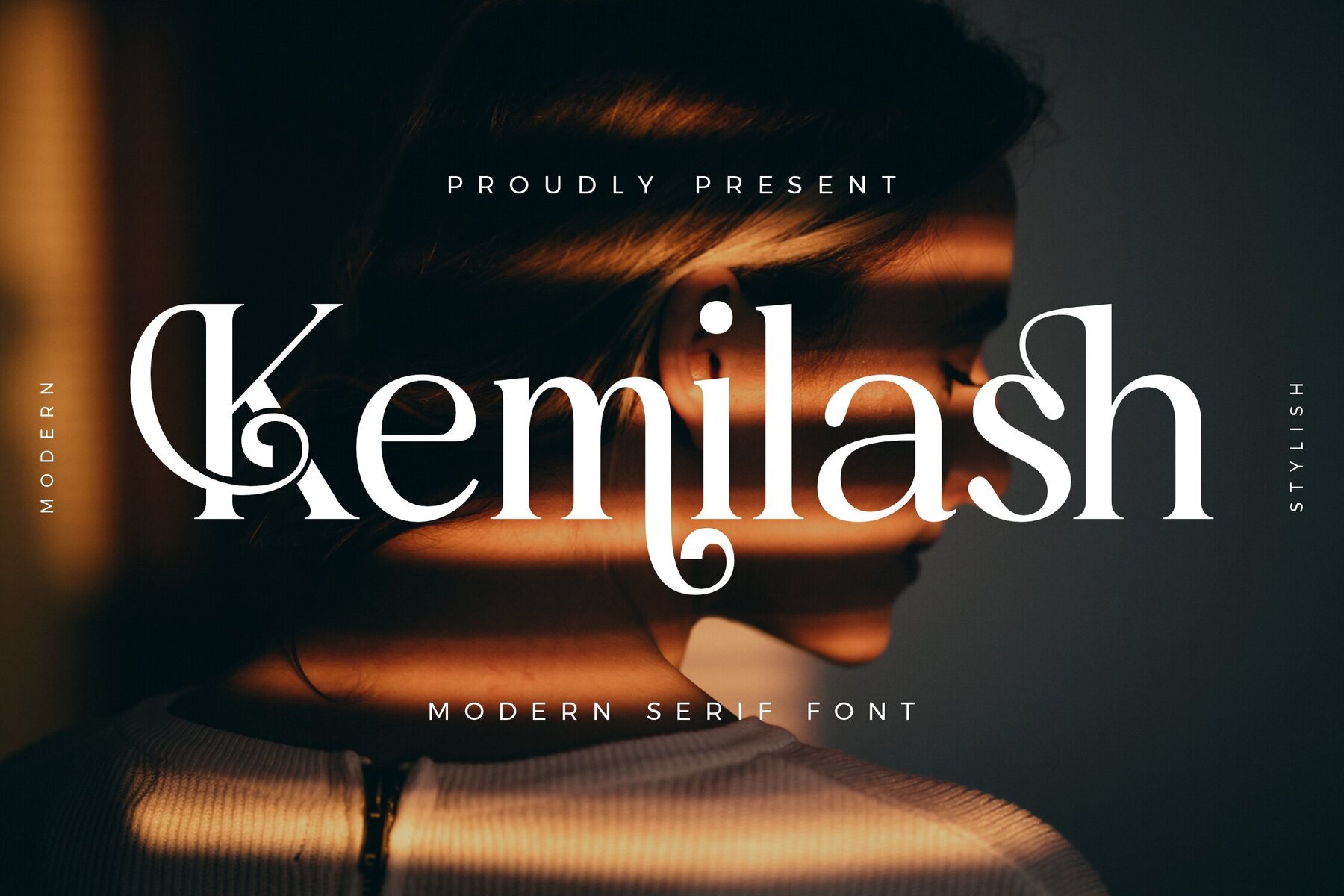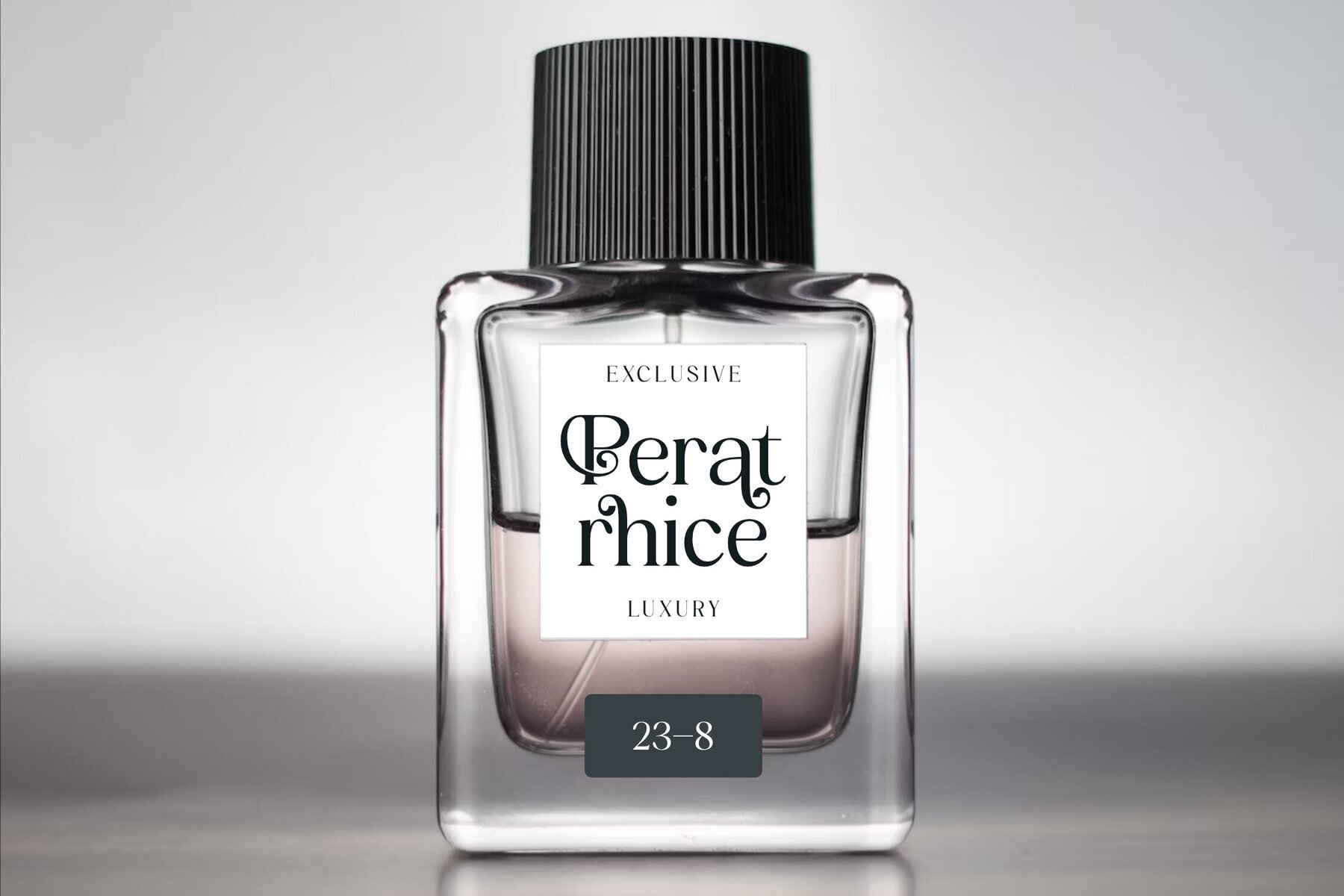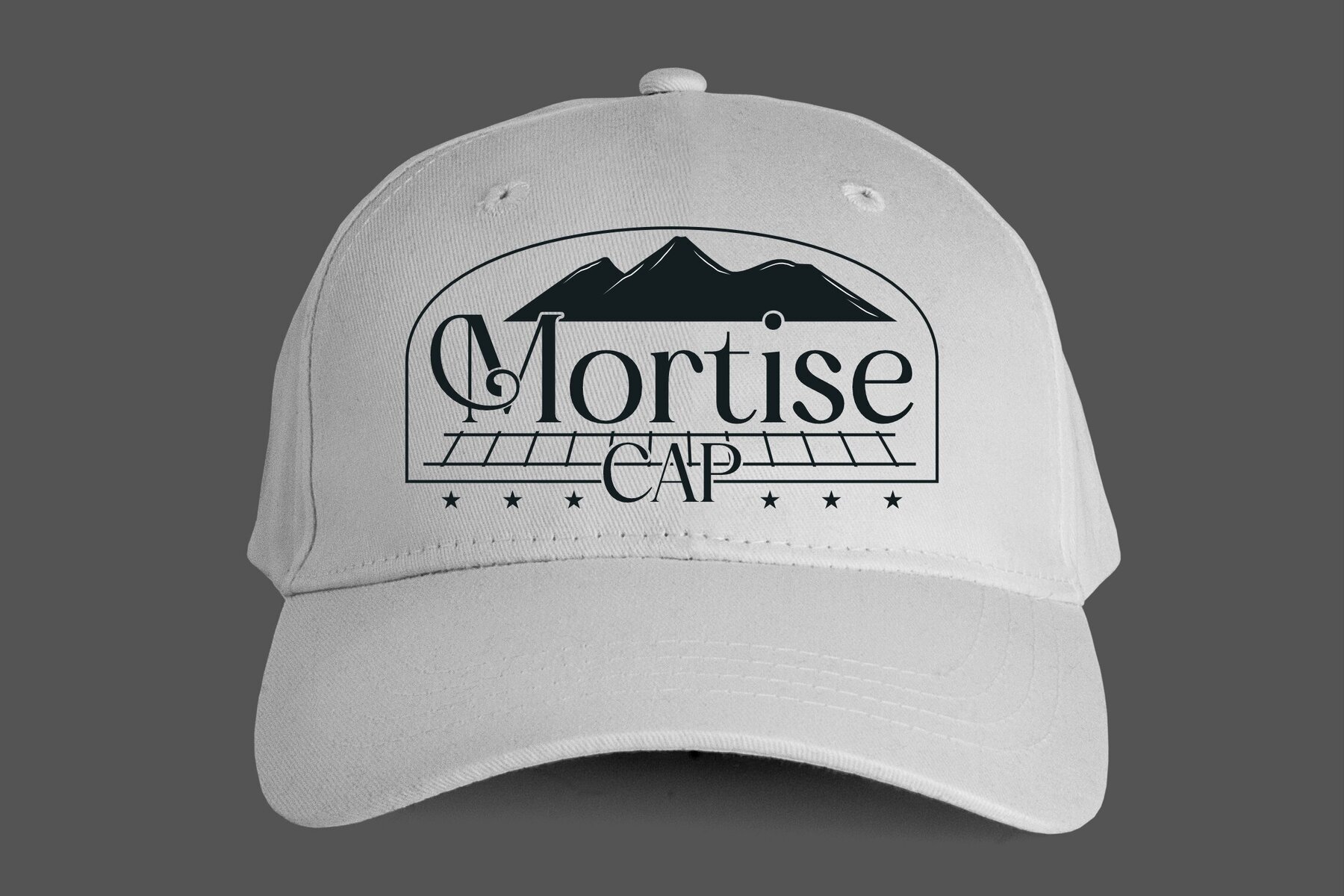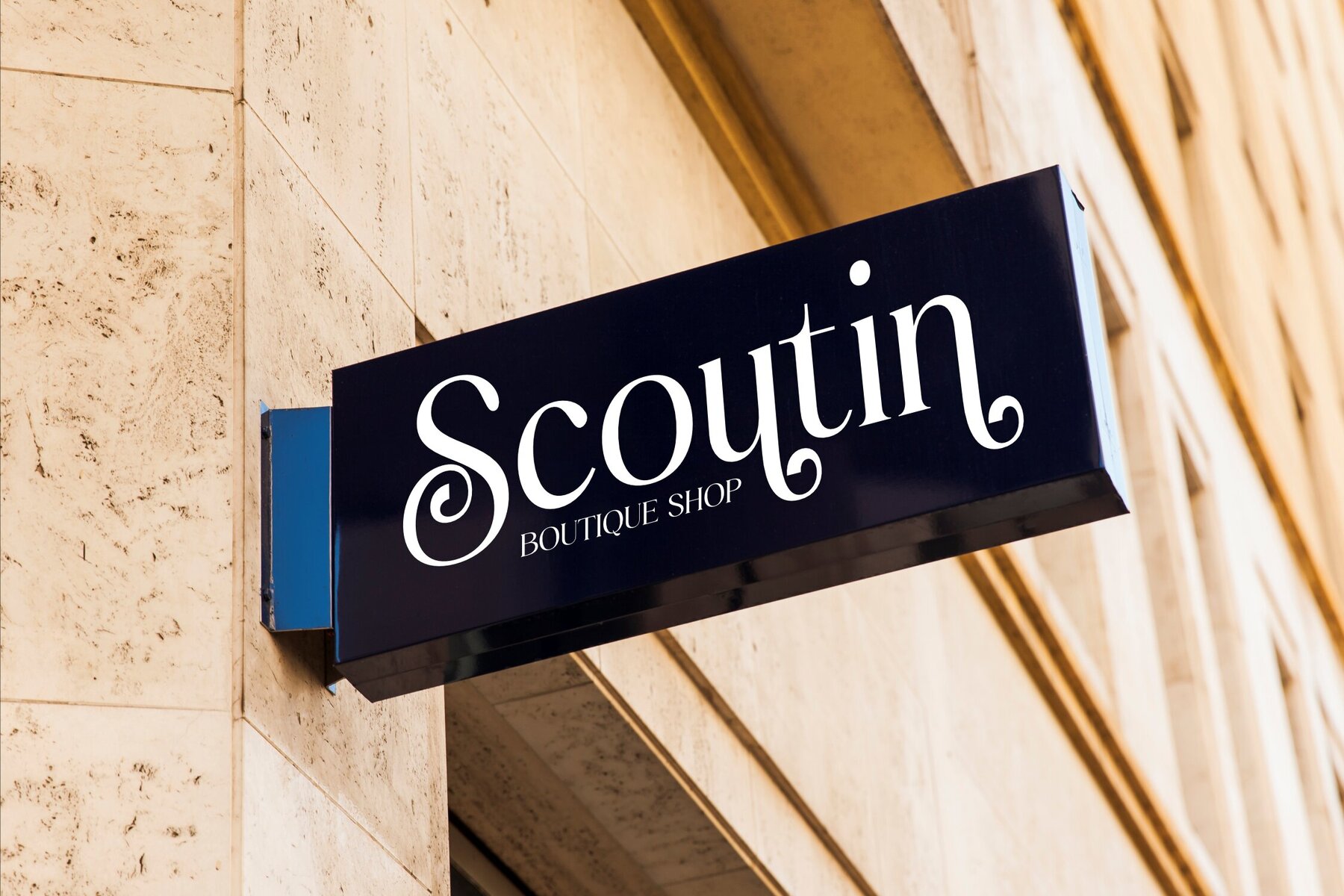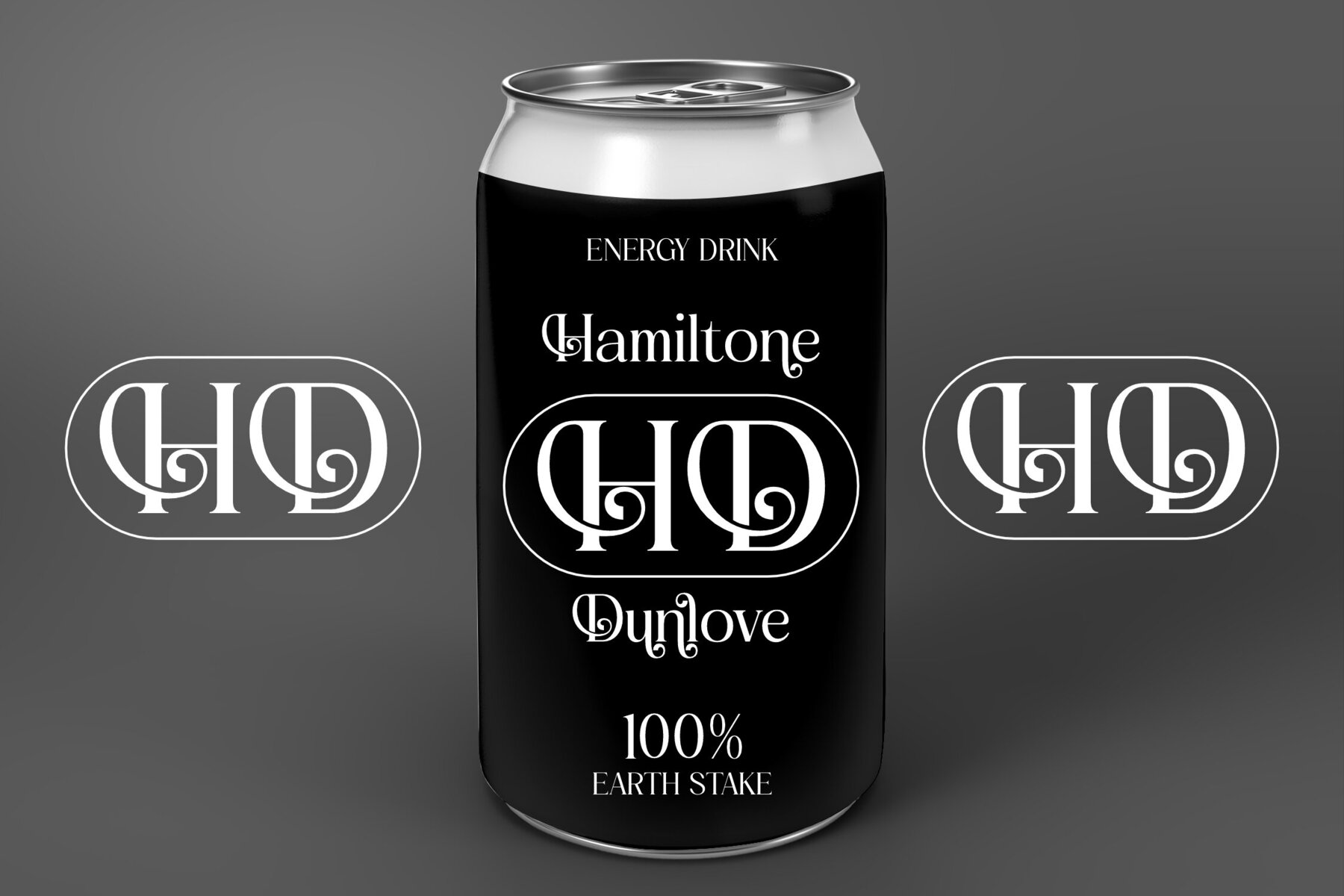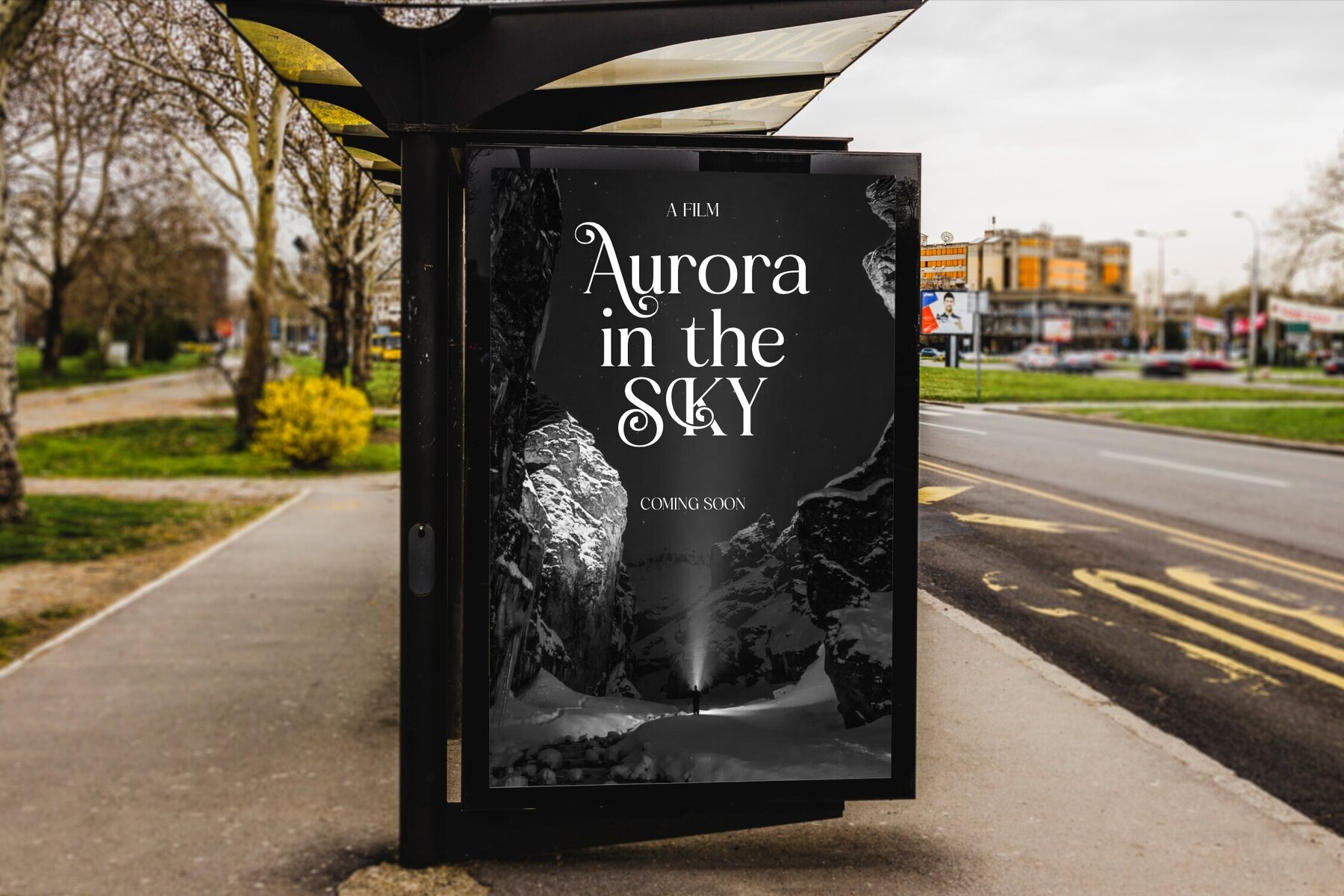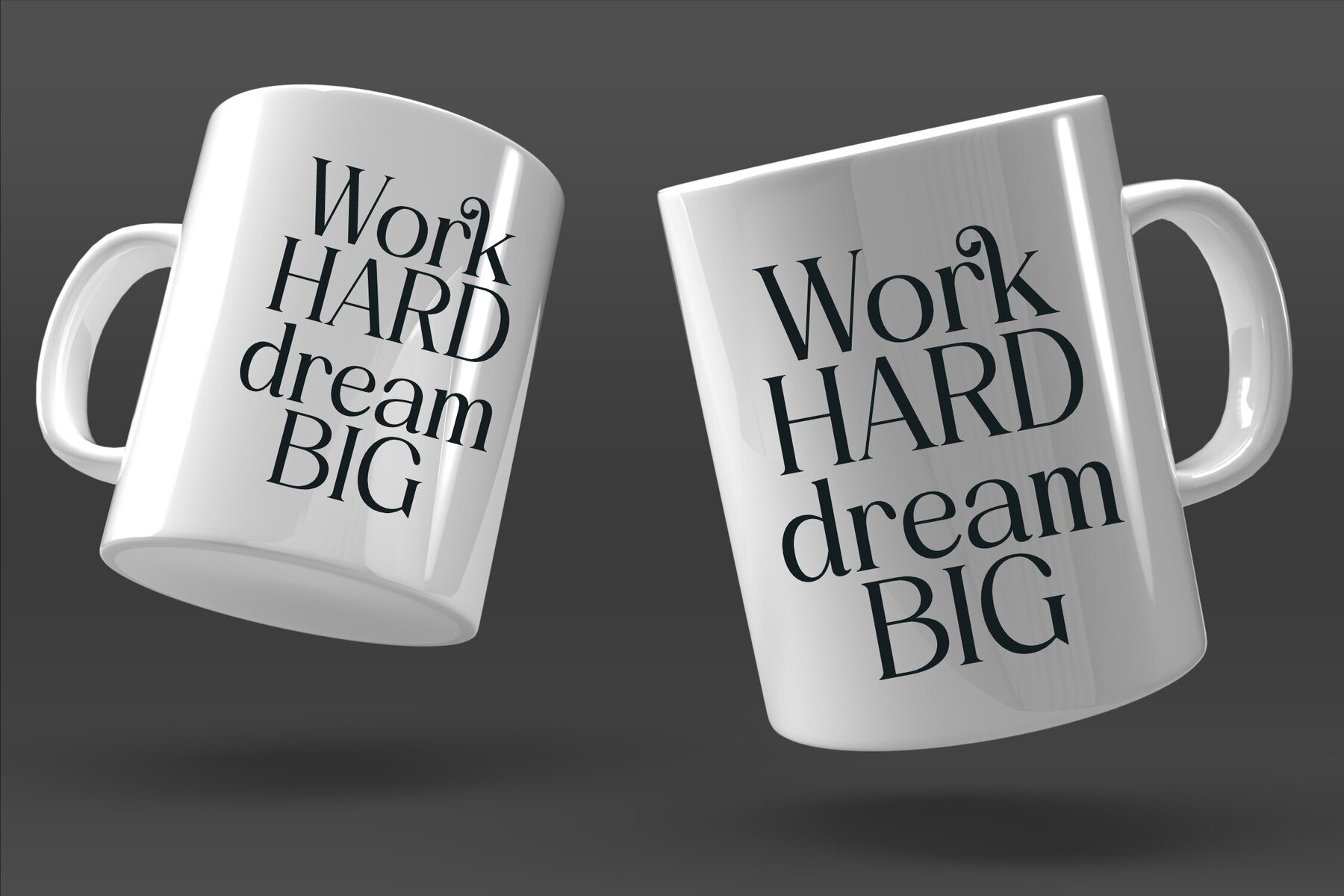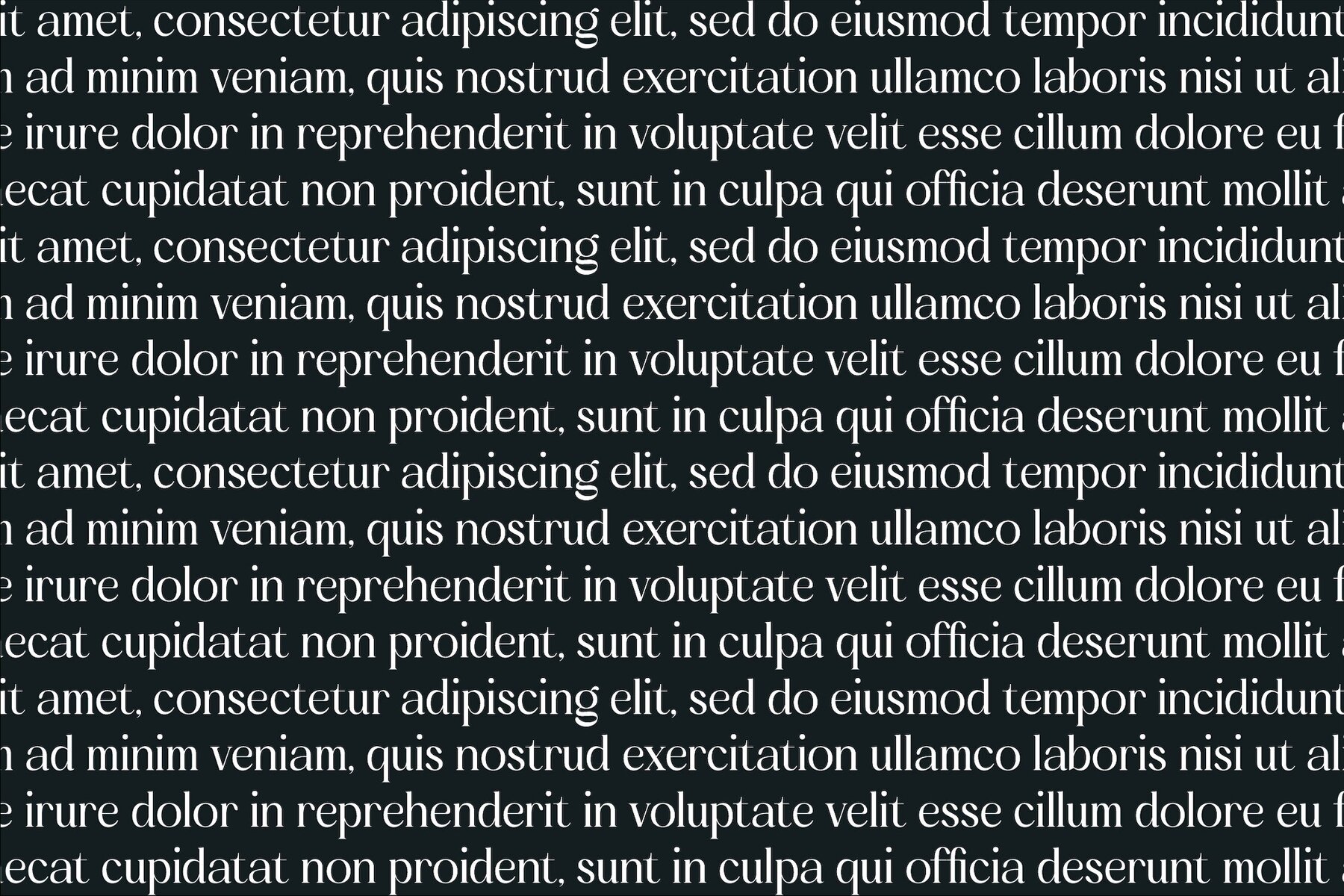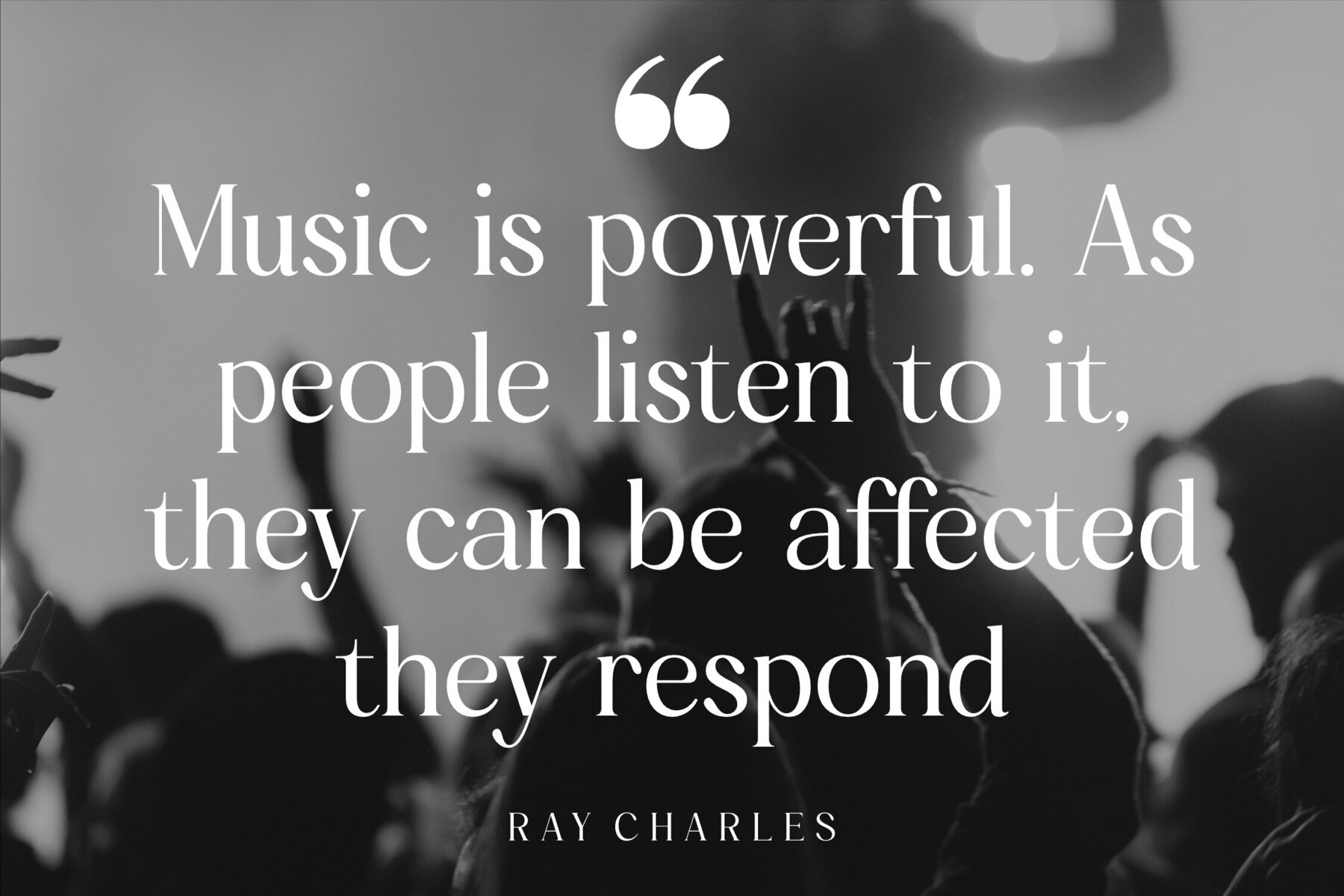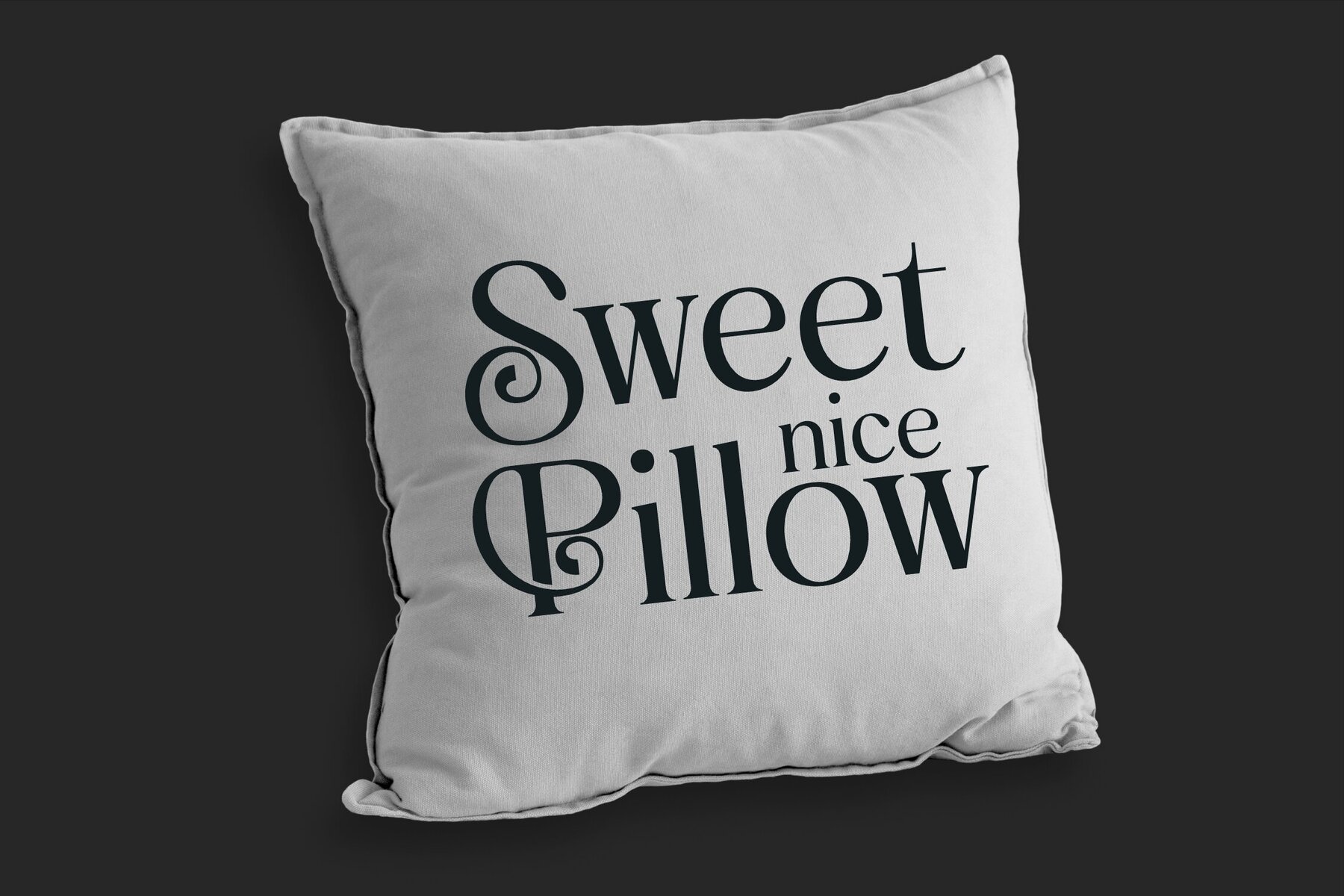
Kemilash Font
Introducing the Kemilash Typeface, a remarkable creation by Storytype Studio. This modern serif font combines classic elements with a unique contemporary twist, making it impeccable for composing an elegant and luxurious logo, captivating book or movie titles, and high-fashion branding. Kemilash is not just a typeface; it's a tool that elevates your creative projects with sophistication and style. Whether you're crafting quotes, magazine layouts, or elegant clothing designs, this typeface promises to be an invaluable part of your design toolkit.Kemilash Typeface